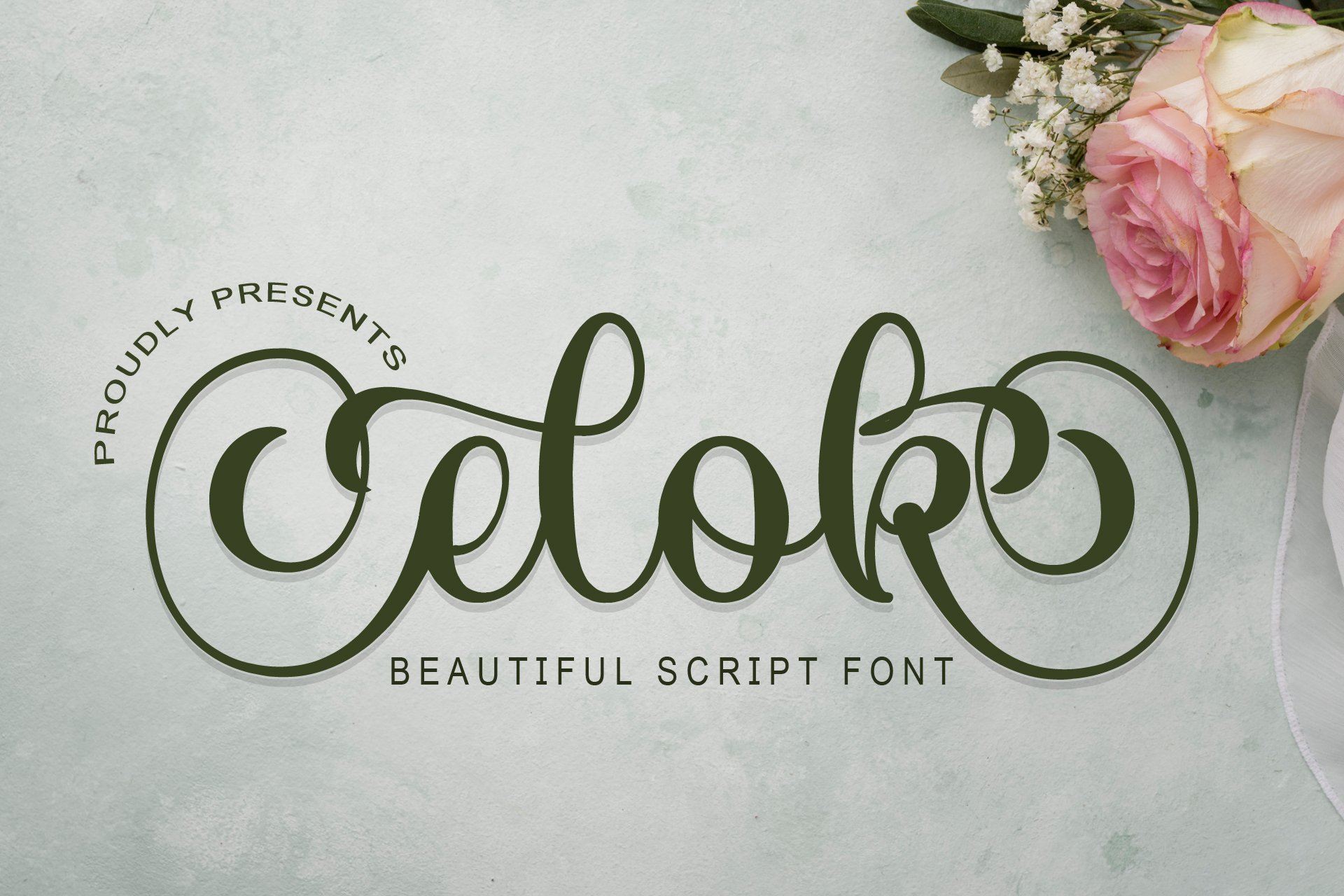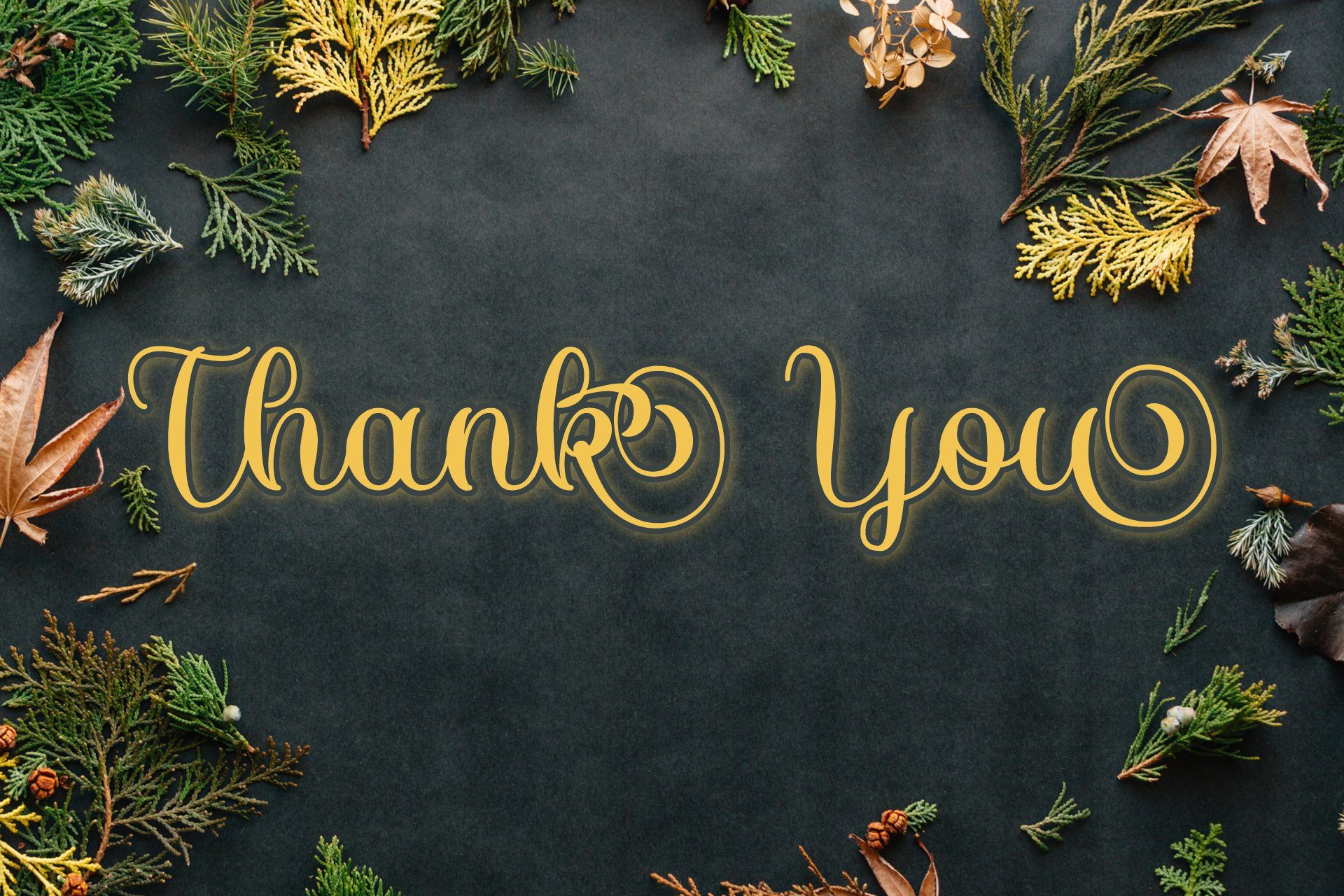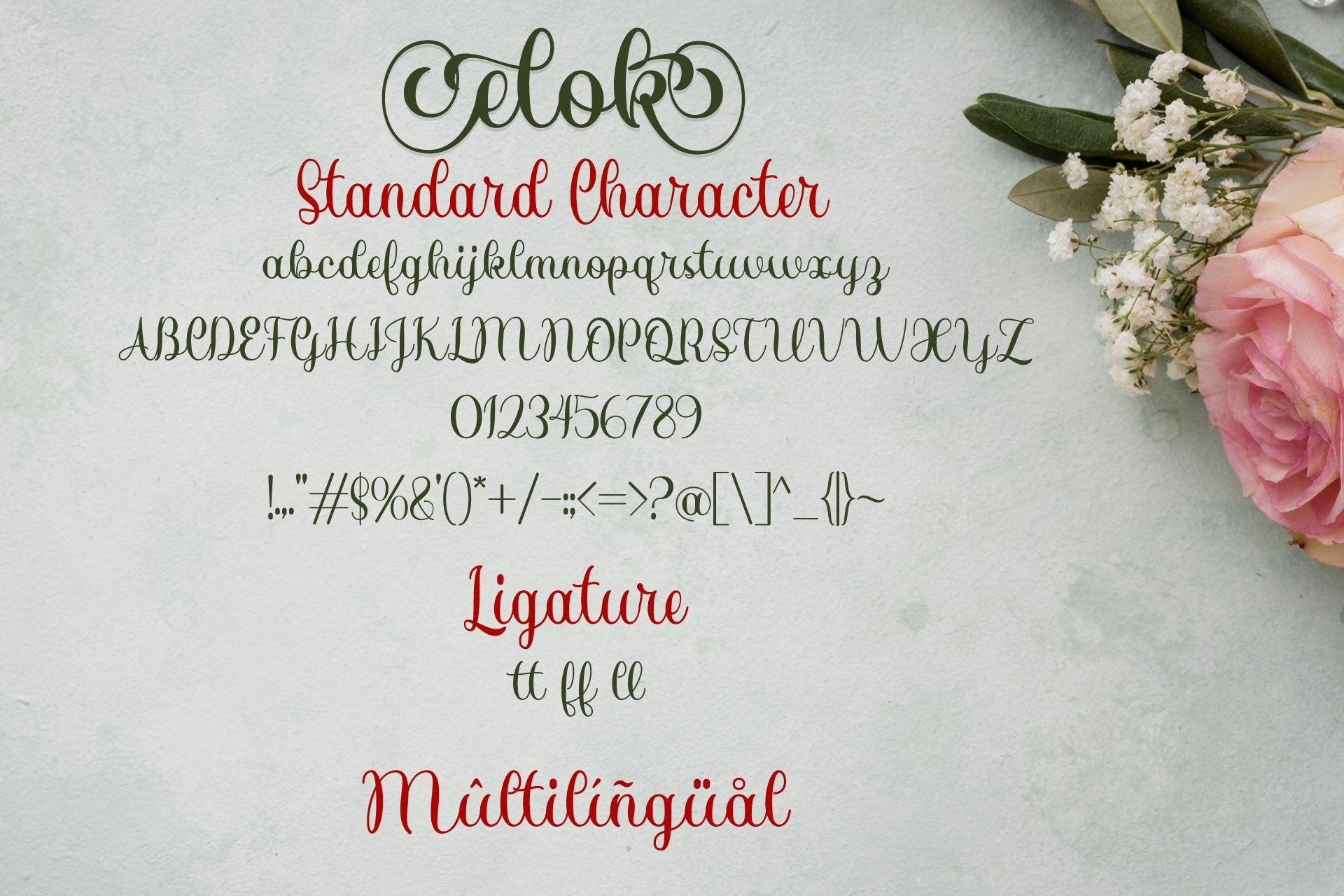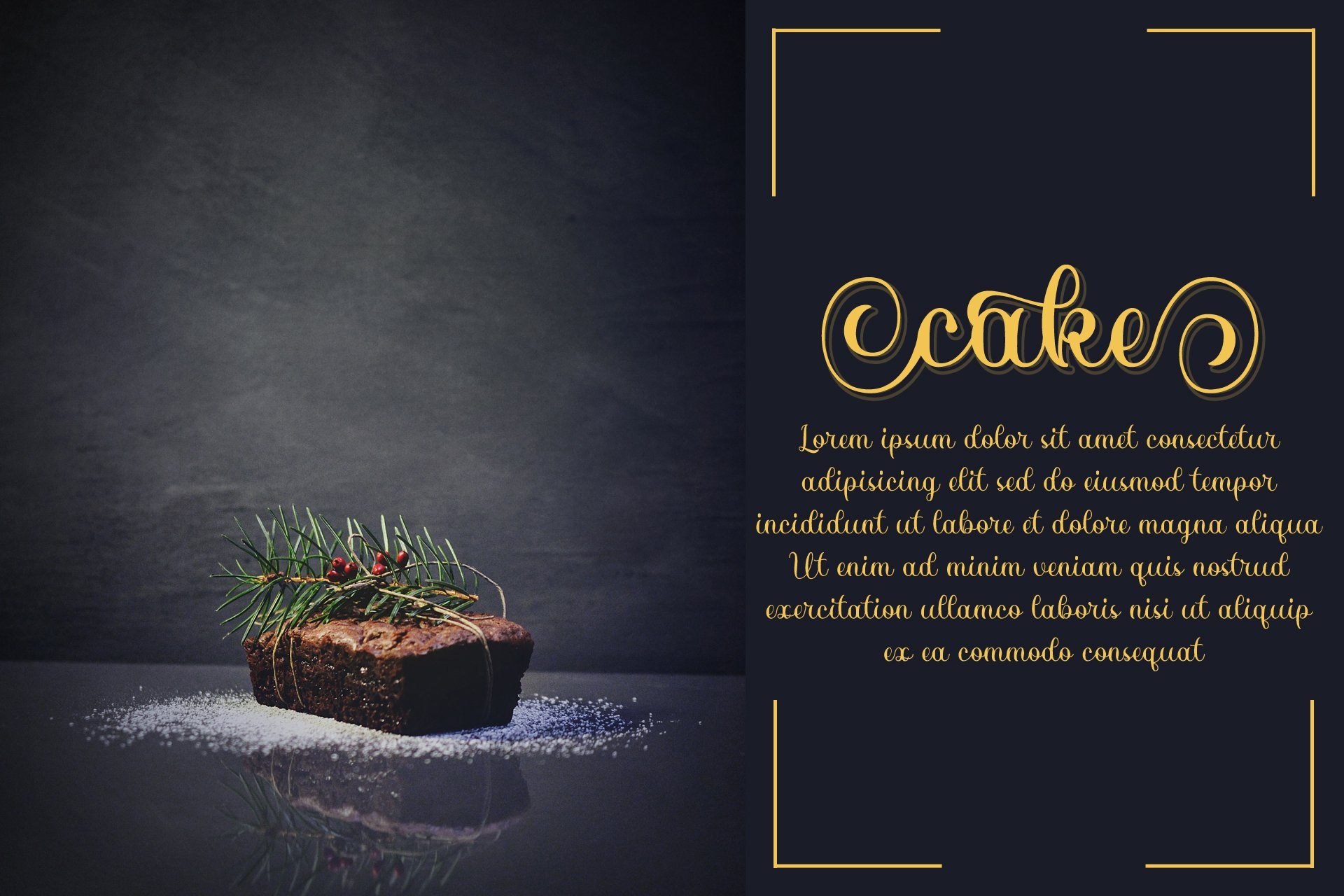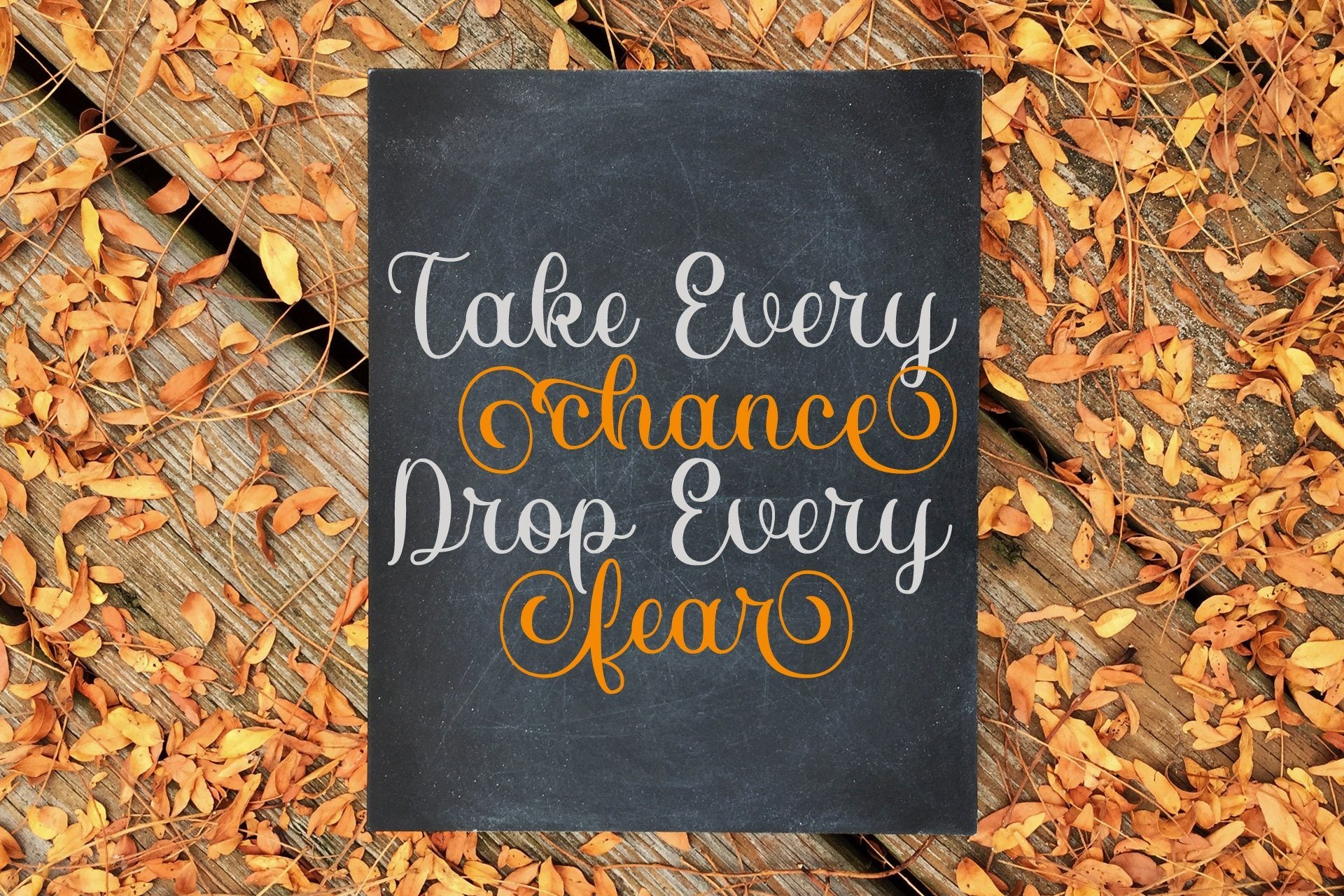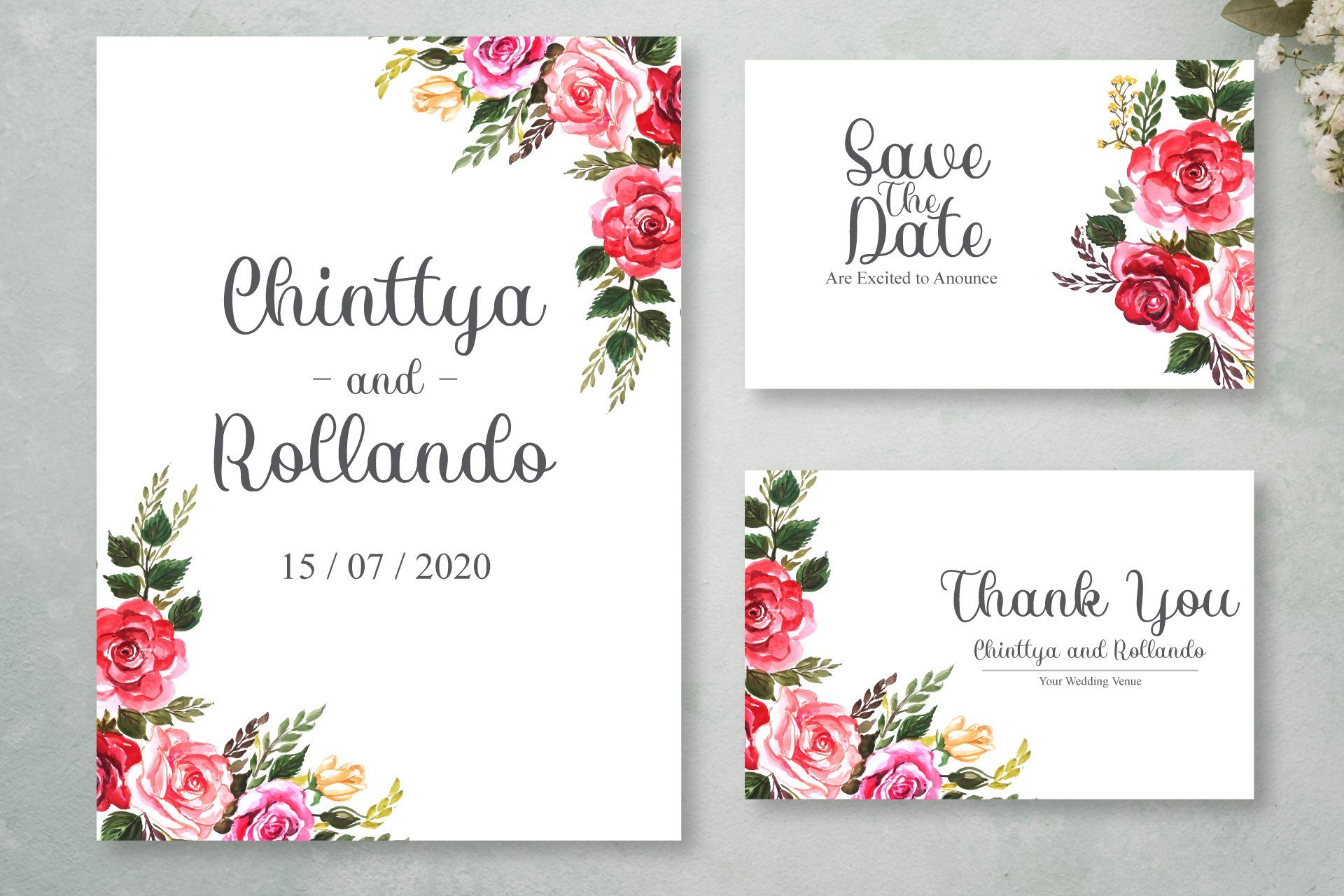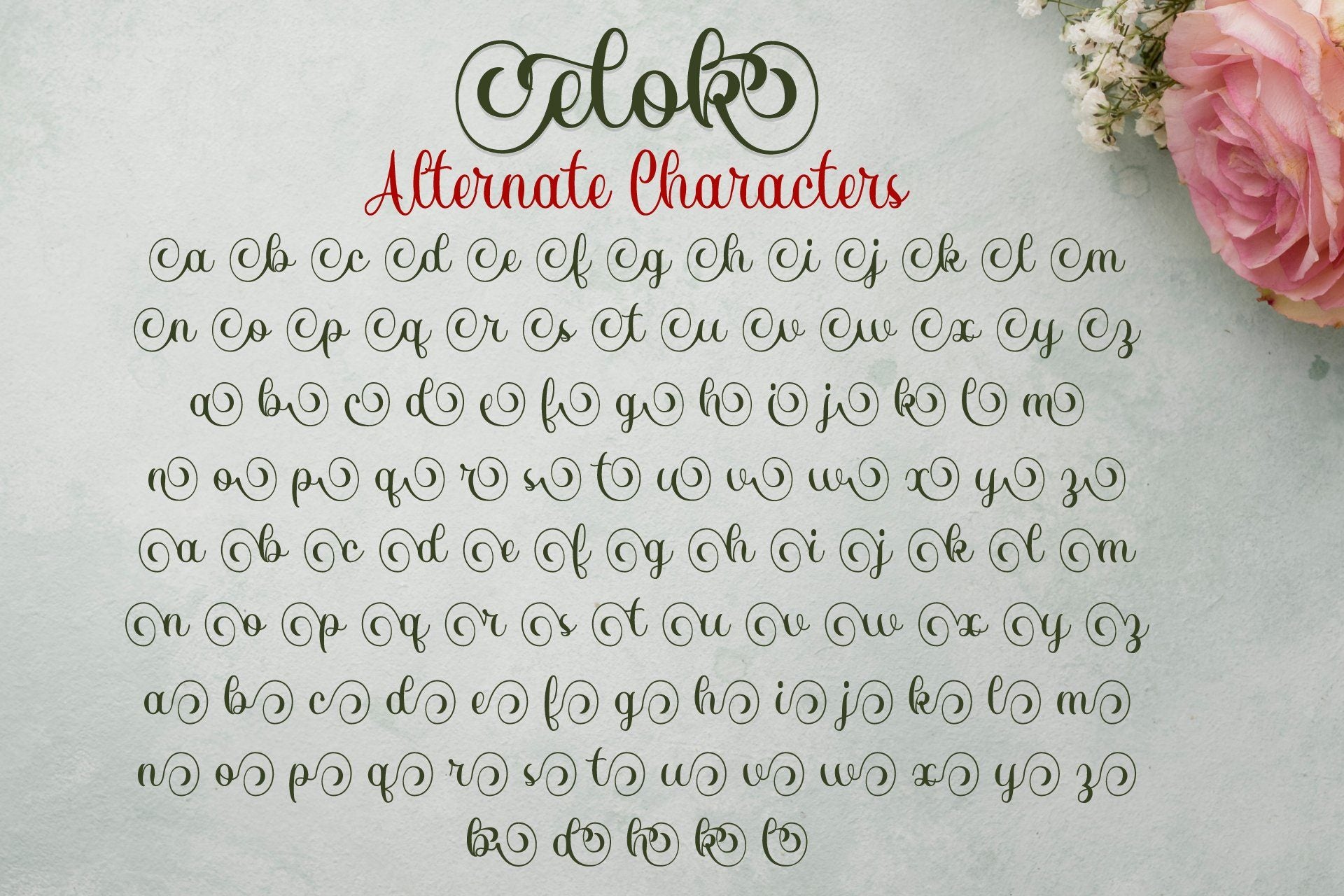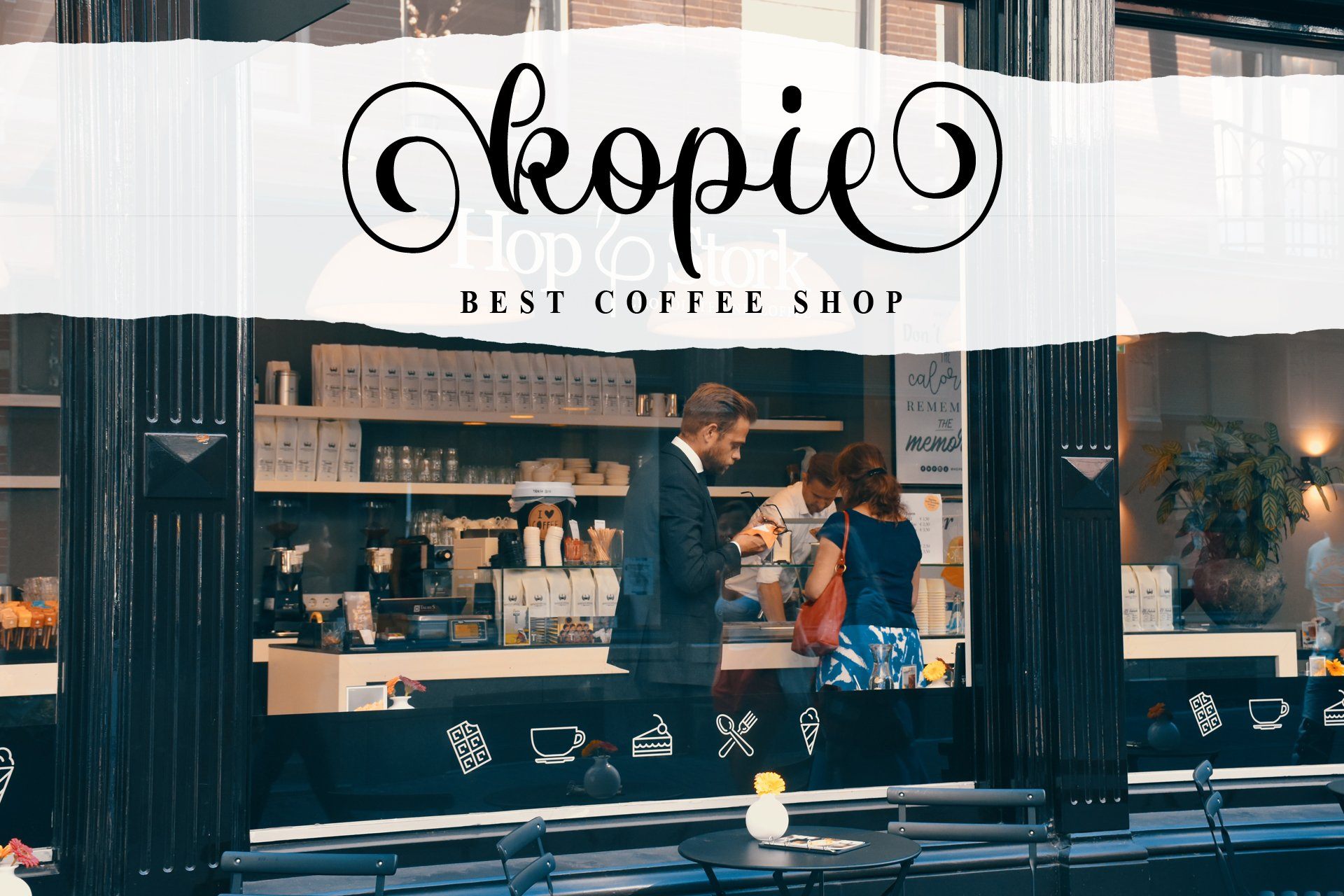
Elok
About Elok
Hello, Introducing our latest product, Elok, according to its name, it is a beautiful script font. Elok is very beautiful, it has various kinds of alternate characters, what makes it look good is the curve at the beginning and the end of words that will surely enhance every design projects. This font is very great for many design projects such as product brand, quotes, clothes, business card, wedding invitation, signature, logos, lettering, etc. Please enjoy this font ! Thanks for visiting and downloading my font. Thank You and Happy Designing.